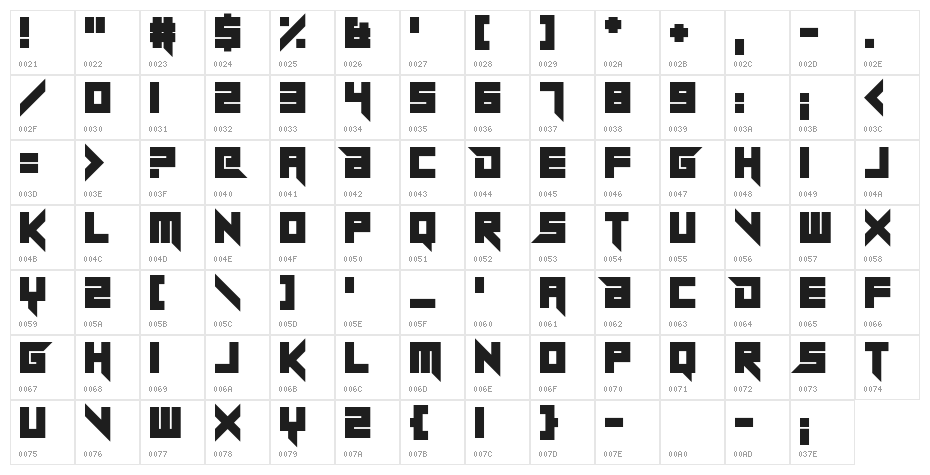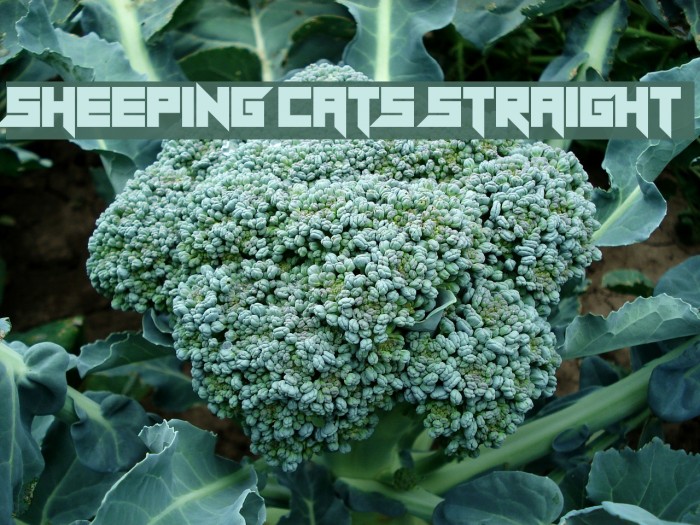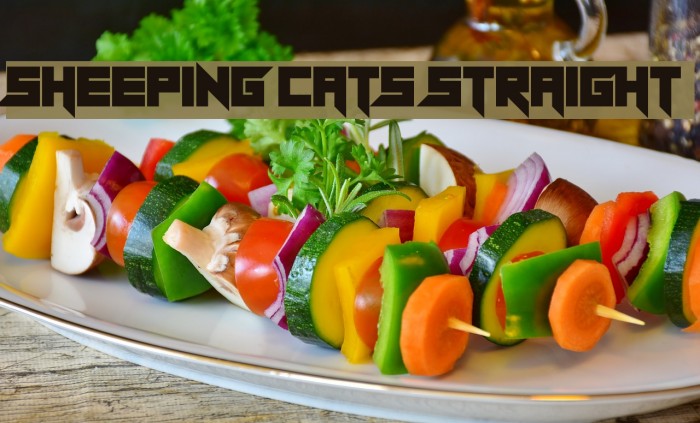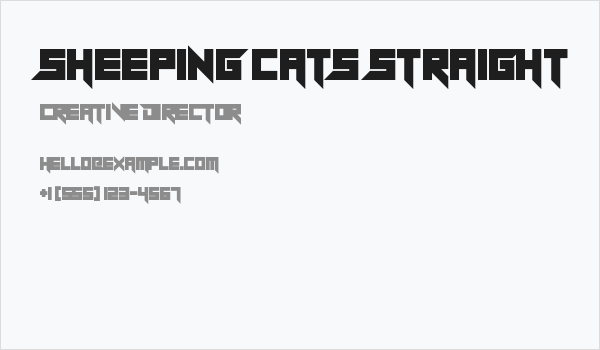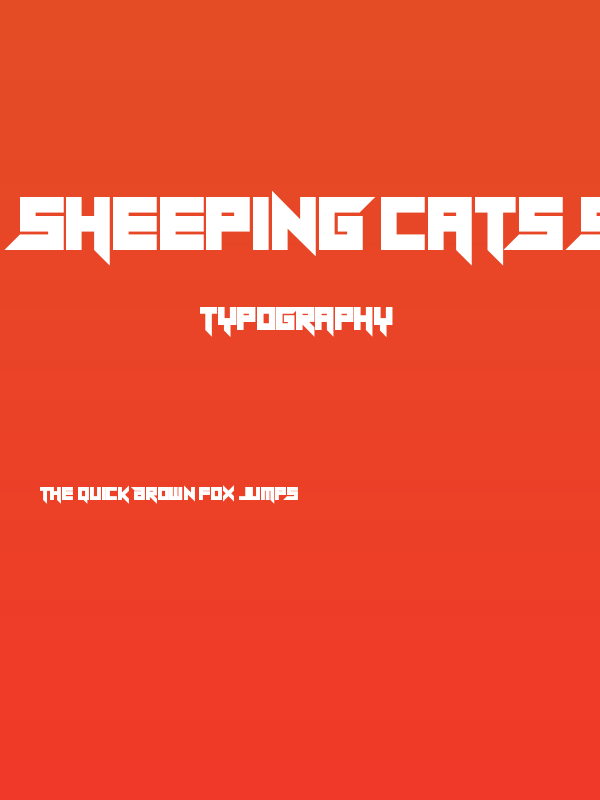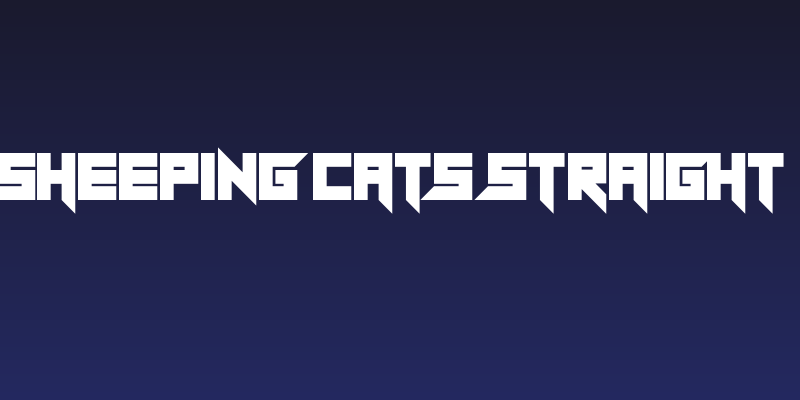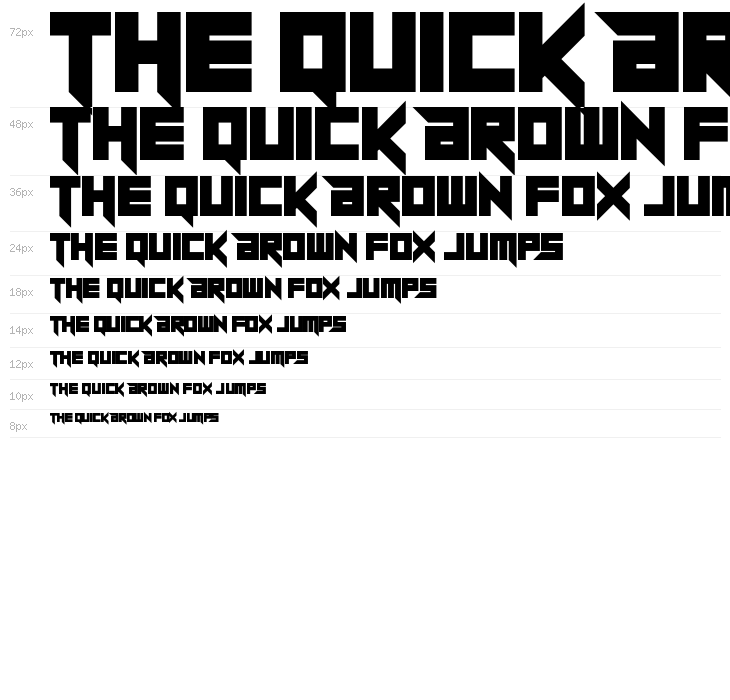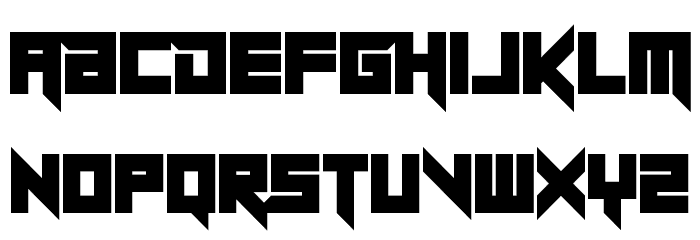
Sheeping Cats Straight Font
Sheeping Cats Straight Description
This font features a bold, geometric style with sharp angles and a blocky appearance. Each character is constructed with thick, uniform strokes, creating a strong visual impact. The angular design gives it a futuristic and edgy feel, making it stand out in any context. The uppercase and lowercase letters maintain a consistent height, while the numbers and special characters follow the same bold and angular theme. This font is highly legible and commands attention, making it suitable for various design applications.
| Proposed Projects | Ideal for branding, posters, album covers, and video game graphics. |